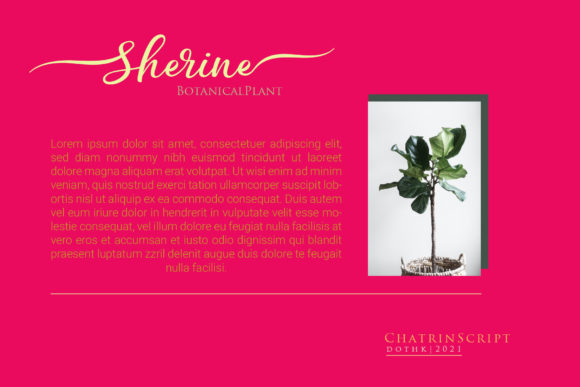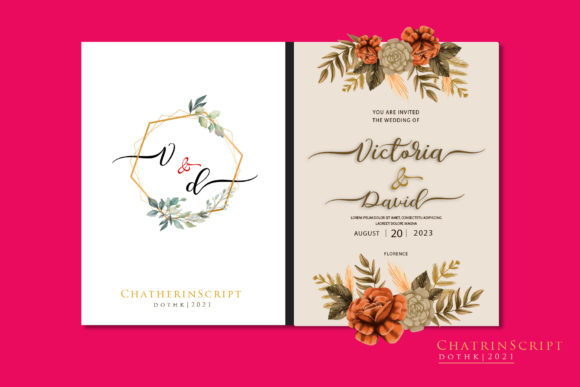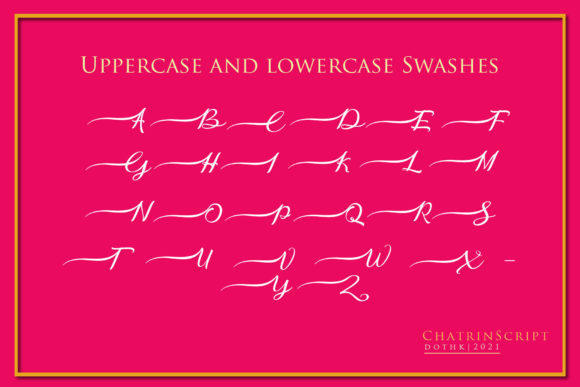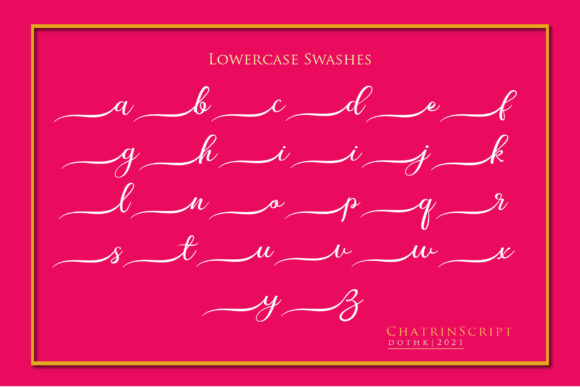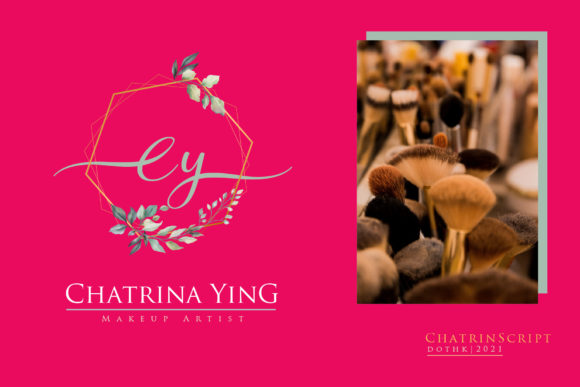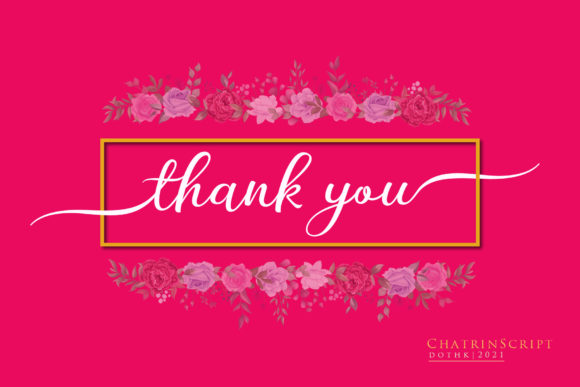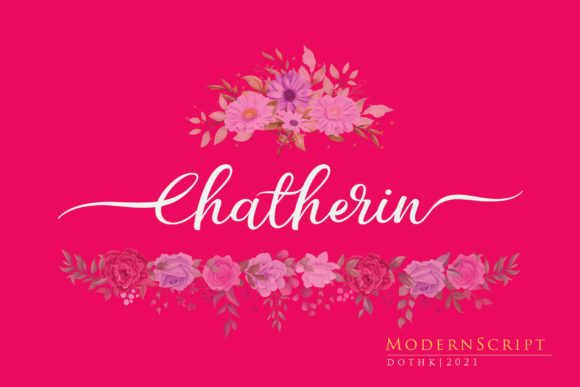
Introducing Chatherin Font: Elevate Your Designs with Luxury and Elegance
In the world of typography, fonts play a crucial role in conveying the tone and aesthetic of a design project. For designers and crafters seeking to add a touch of luxury and sophistication to their creations, the Chatherin Font is an exceptional choice. This beautiful light handwritten font boasts a unique feel and a stunning impact, making it perfect for a wide range of design applications.
What Makes Chatherin Font Stand Out?
Chatherin Font is not just another ordinary font; it’s a design powerhouse that can instantly elevate your projects with its elegant and refined appearance. Here are some key features that make Chatherin Font a standout:
- Unique and Handwritten Style: Chatherin Font features a beautiful light handwritten style that exudes elegance and sophistication. Its unique feel sets it apart from more traditional fonts, making it perfect for designers looking to add a personal touch to their work.
- Luxury Spark: With Chatherin Font, you can add a luxury spark to any design project. Whether you’re working on a branding project, a website design, or a craft project, this font is sure to impress with its refined and high-end appearance.
- PUA Encoded for Easy Access: Chatherin Font is PUA (Private Use Area) encoded, which means you can access all of the amazing glyphs and ligatures with ease. This feature makes it simple to get the most out of this font and add intricate details to your designs.
Chatherin Font is an excellent choice for designers and crafters looking to create stunning visual content. Whether you’re working on:
- Branding Projects: Use Chatherin Font to create elegant and sophisticated logos, business cards, and letterheads that reflect your brand’s personality.
- Website Design: Add a touch of luxury to your website with Chatherin Font, perfect for headings, titles, and other design elements.
- Craft Projects: Incorporate Chatherin Font into your craft projects, such as papercraft, card making, and scrapbooking, to add a personal and elegant touch.
Tips for Getting the Most Out of Chatherin Font
To maximize the impact of Chatherin Font, here are some tips to keep in mind:
- Experiment with Font Sizes: Play around with different font sizes to create visual hierarchy and emphasize key elements in your design.
- Pair with Complementary Fonts: Combine Chatherin Font with complementary fonts to create a unique and visually appealing typography scheme.
- Take Advantage of Glyphs and Ligatures: Use the PUA encoded features to access glyphs and ligatures, adding intricate details and personality to your designs.
In conclusion, Chatherin Font is an exceptional choice for designers and crafters seeking to add a touch of luxury and elegance to their design projects. With its unique feel, stunning impact, and PUA encoded features, this beautiful light handwritten font is sure to elevate your designs and set them apart from the rest. So why wait? Get creative with Chatherin Font today and experience the power of beautiful typography!